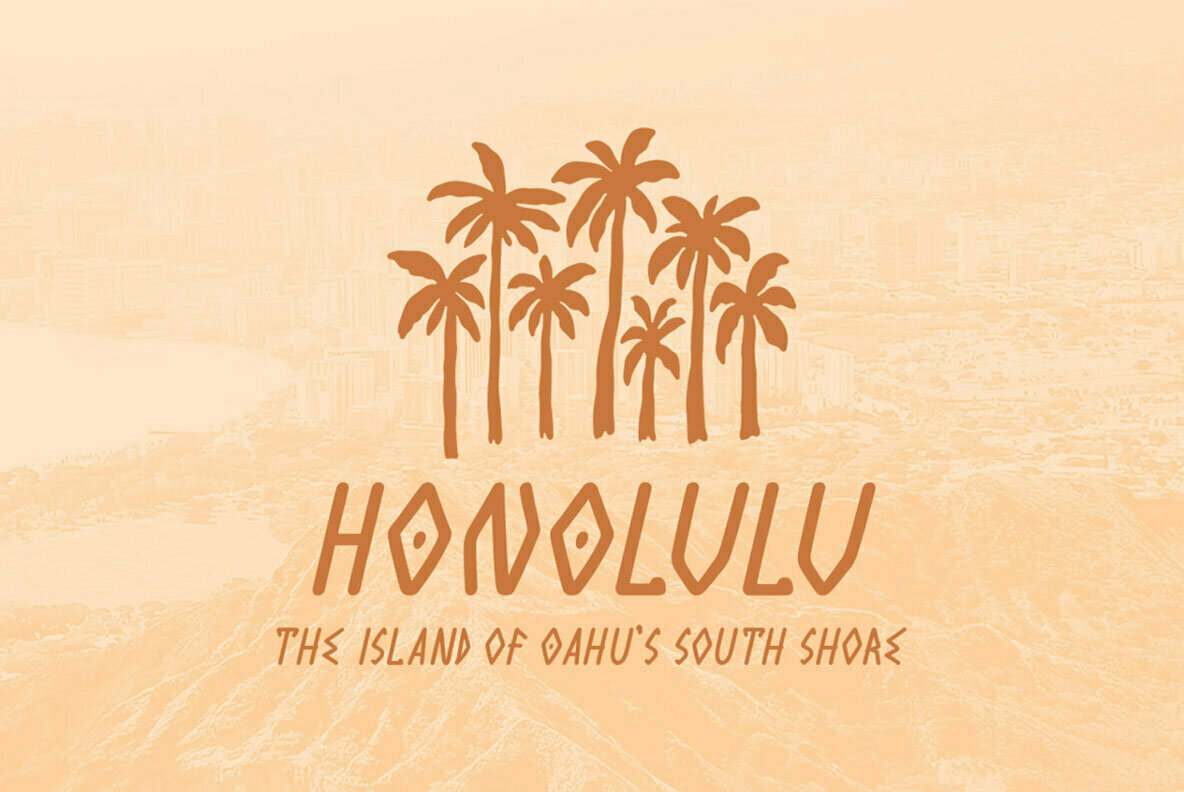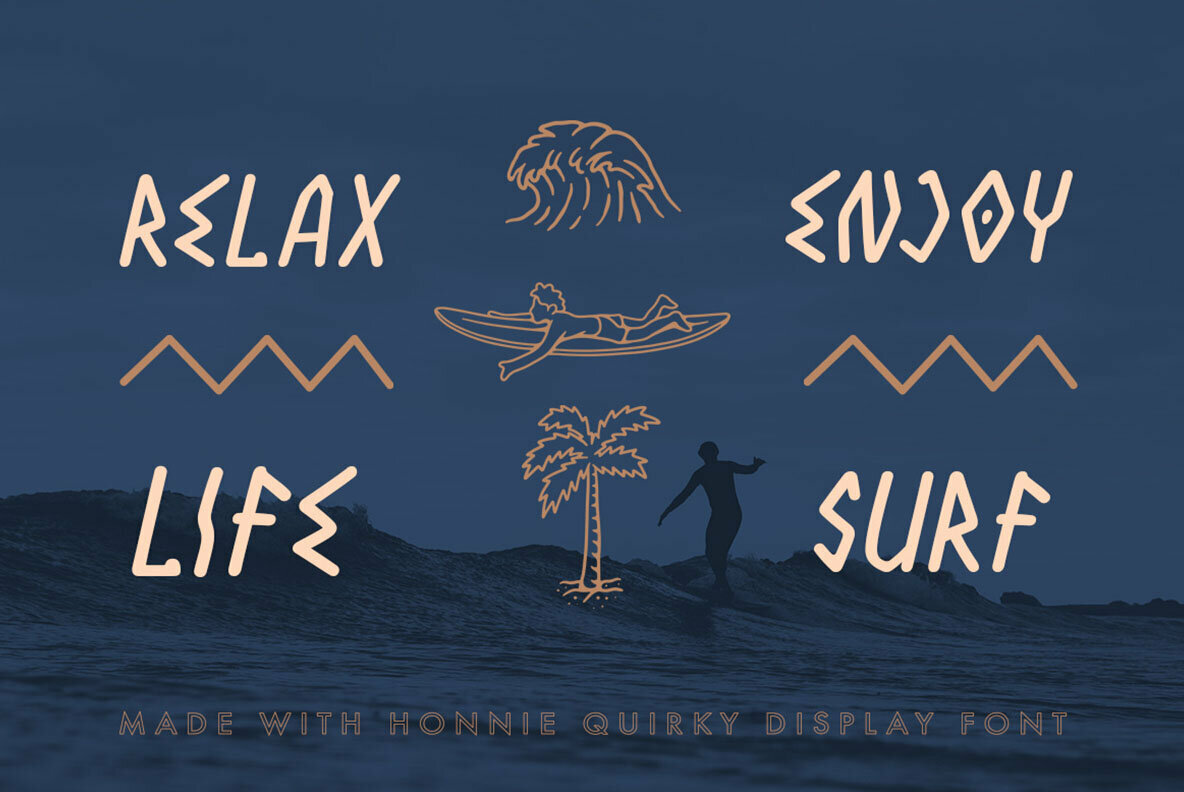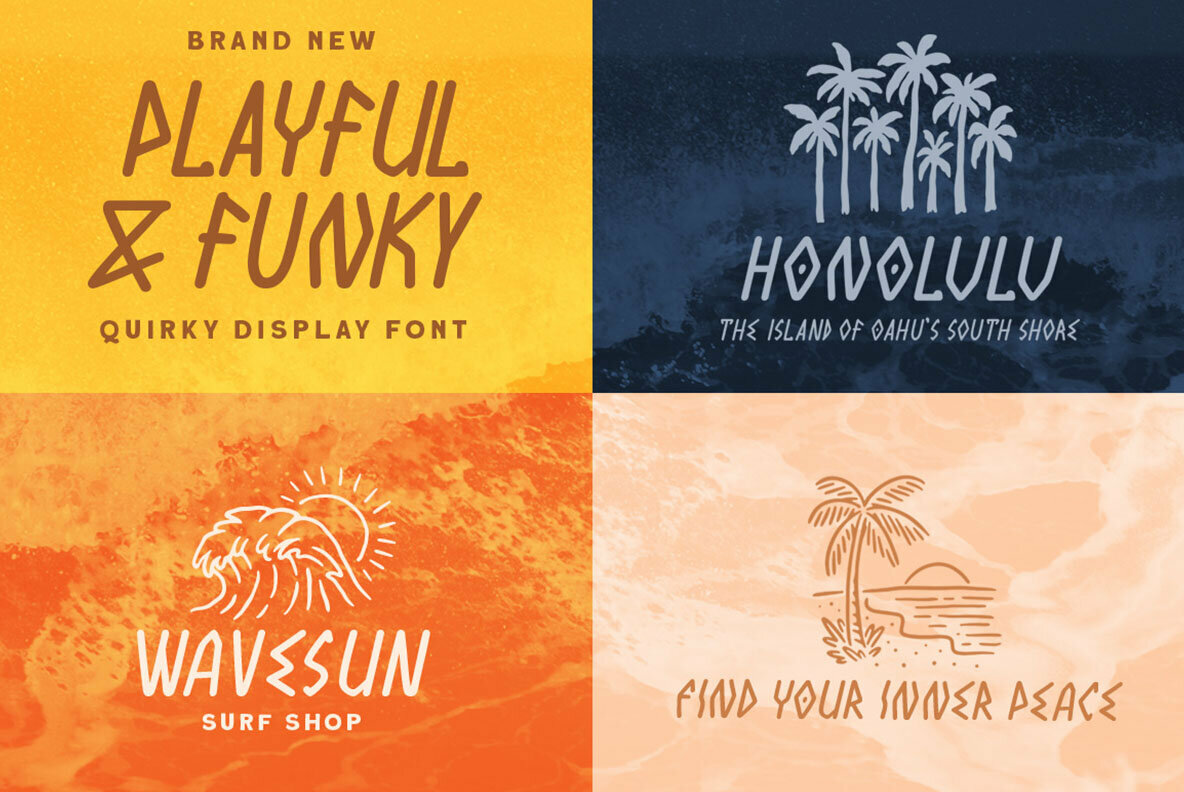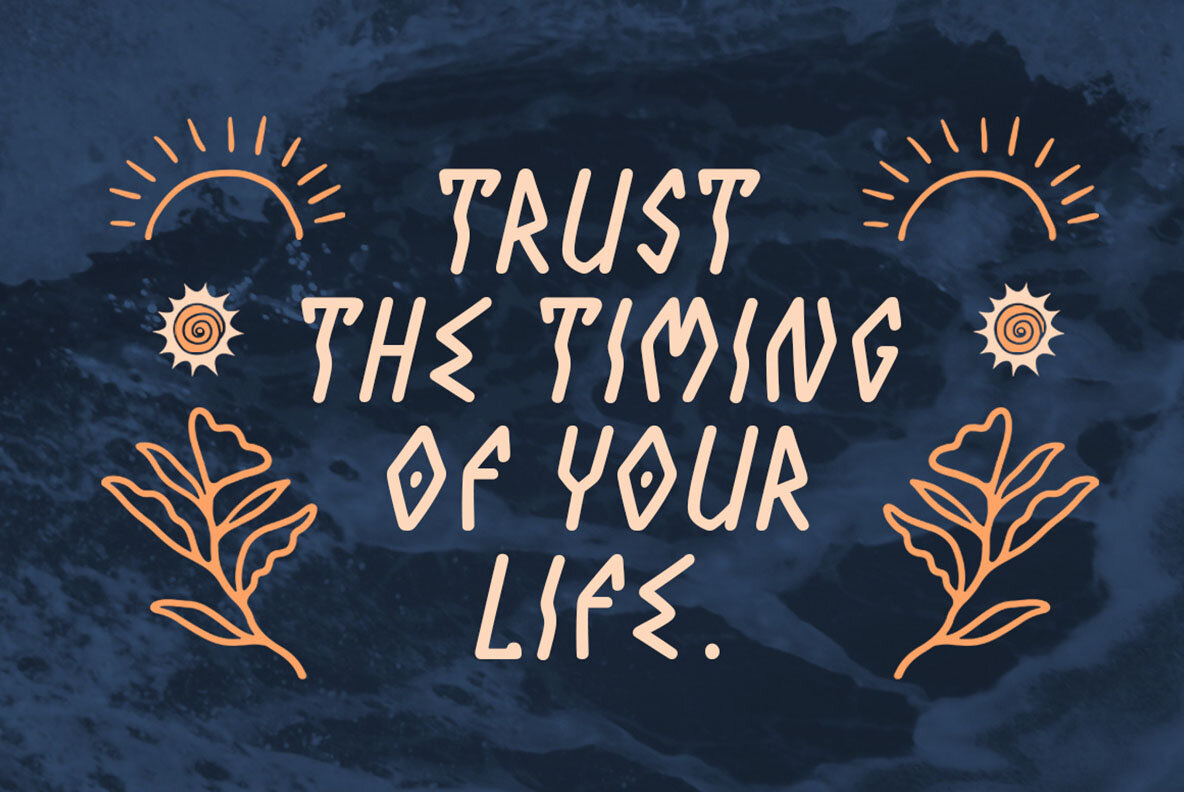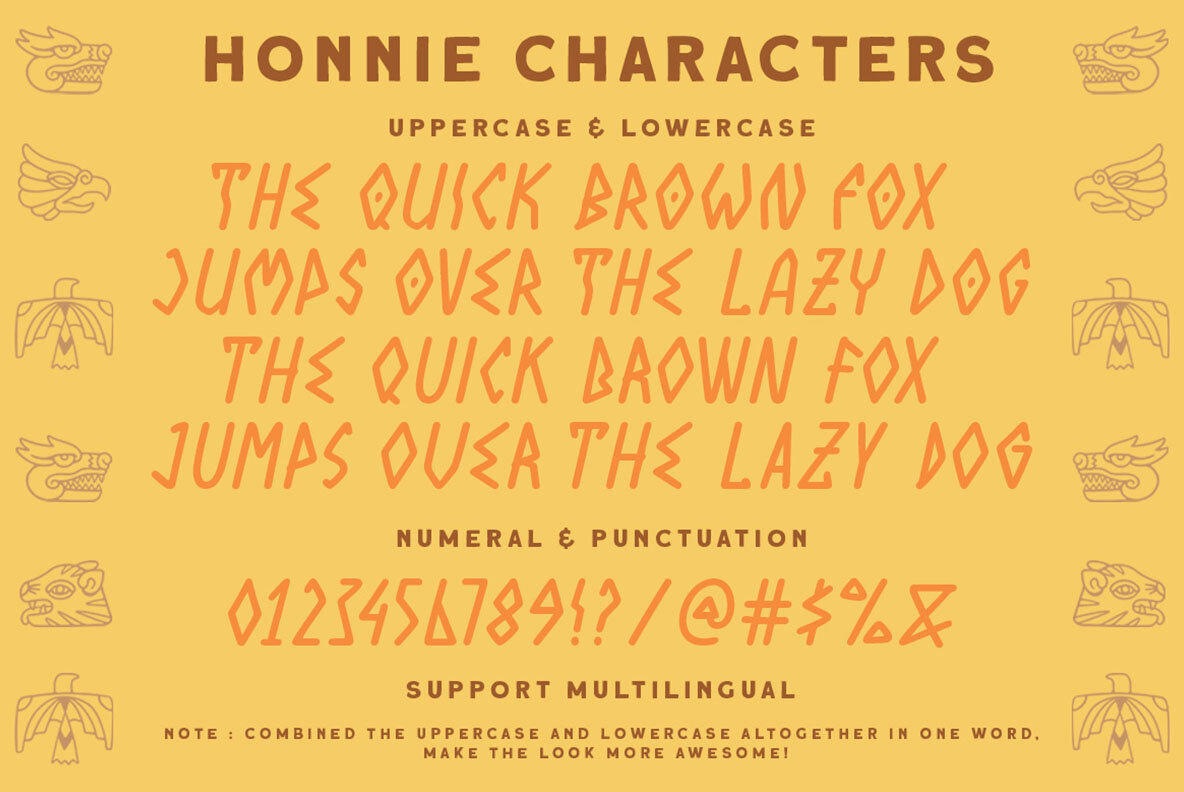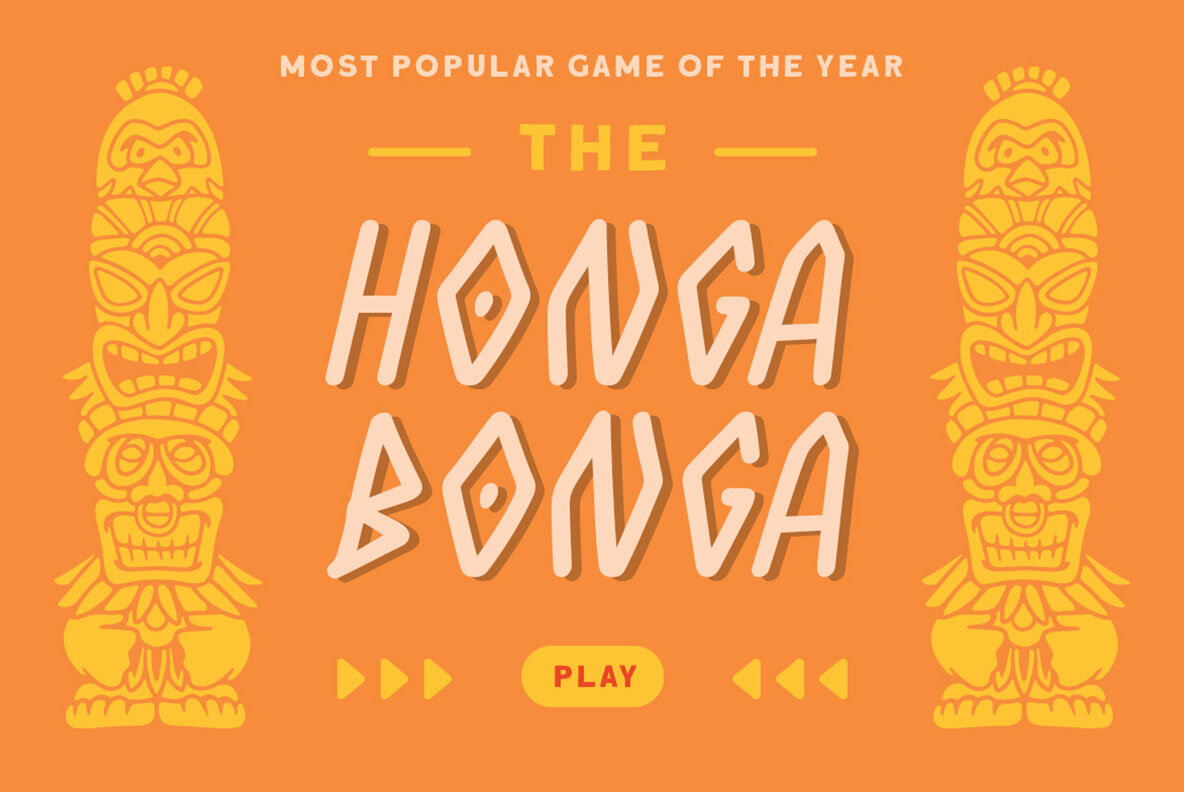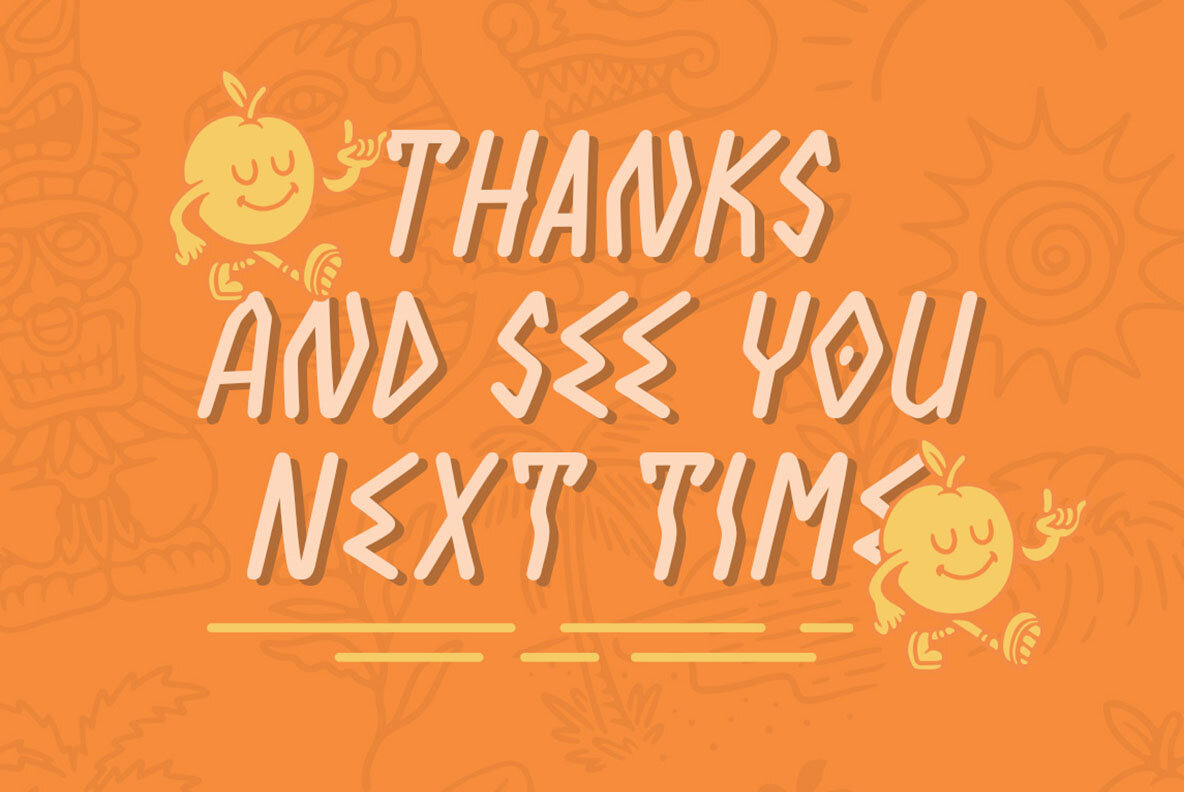
Honnie Font
Embark on a creative journey with Honnie, a display font that defies convention with its unique and contemporary letterforms. Designed to capture attention, this font is an excellent choice for logos, headlines, signage, and other formal designs such as invitations, labels, and magazines. The distinctiveness of Honnie lends itself gracefully to both digital and print mediums, ensuring your text stands out in any format. Complement your designs with included free illustrations, perfectly harmonizing with the font and enriching your creative possibilities. From greeting cards to advertising, Honnie's versatility shines in diverse applications, making it an invaluable asset in any designer's toolkit.Honnie: A Quirky Display Font With Distinctive Appeal